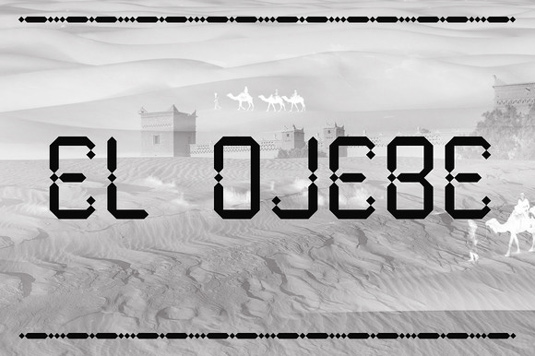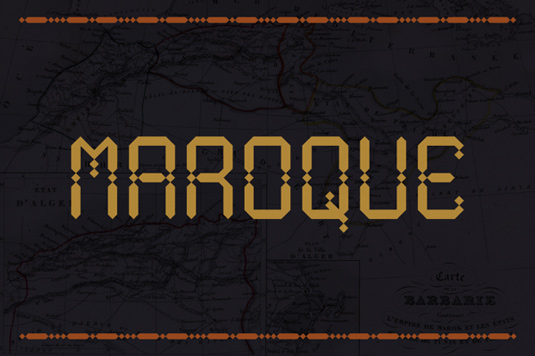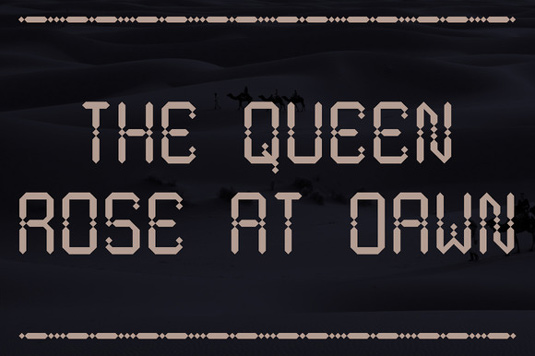
Font of the day: Maroque
Every day we showcase the best fonts on the web. Today it's Maroque by Harding Penney.
Maroque by Harding Penney
This geometric type design Maroque, created by designer and artist Harding Penny, was inspired by the forms and patters motifs found in Moroccan textiles, artwork and architecture. The designer comments on Behance: "The pattern motifs most specifically associated with this font design are those found in the textiles of the Maghreb or Berber people of North Africa, these have a kind of bold simplicity that appears decorative, detailed and grid-based."